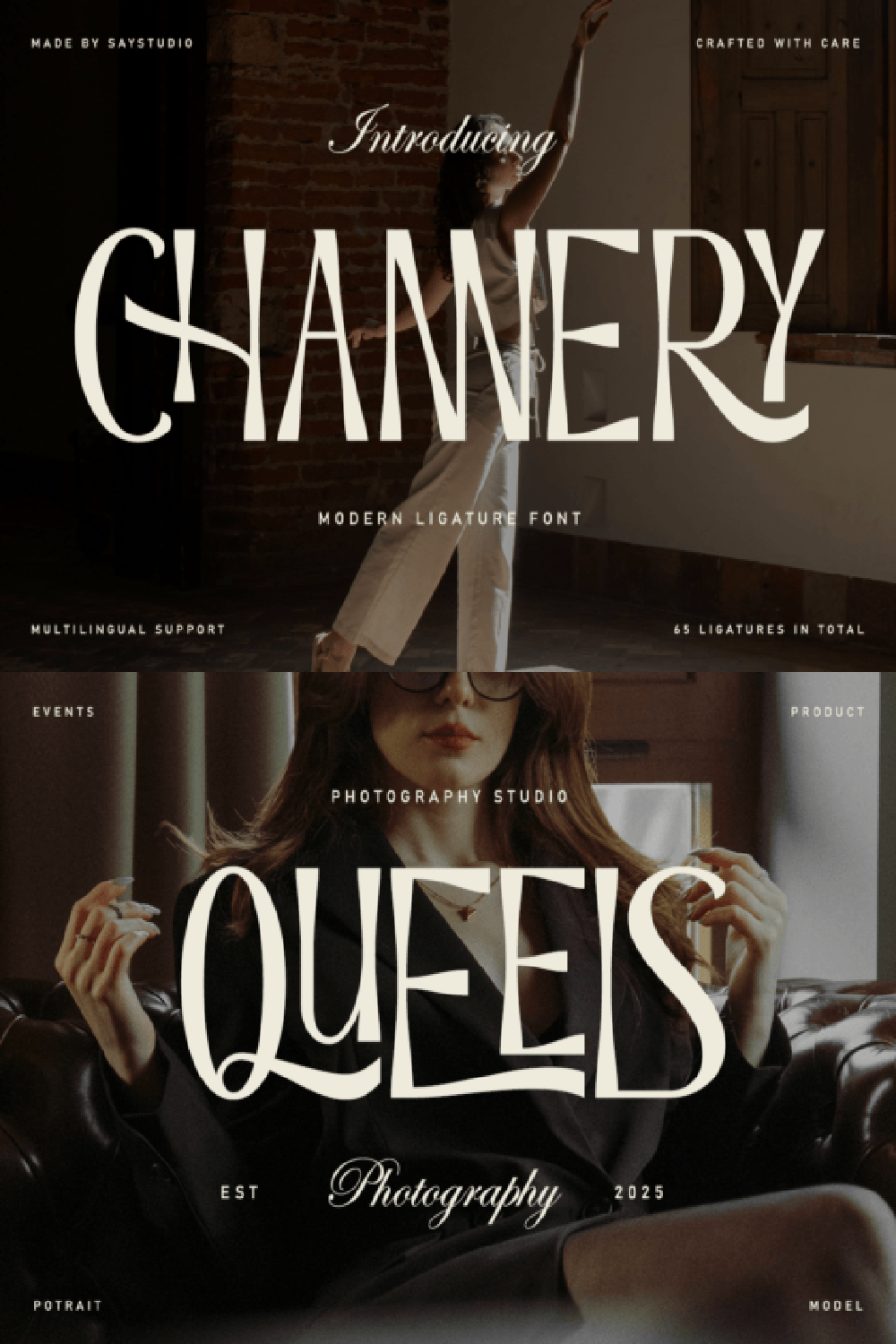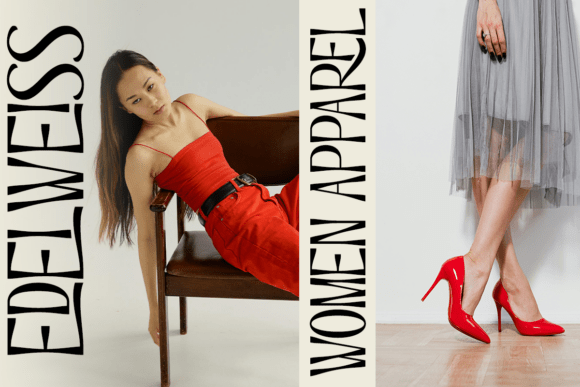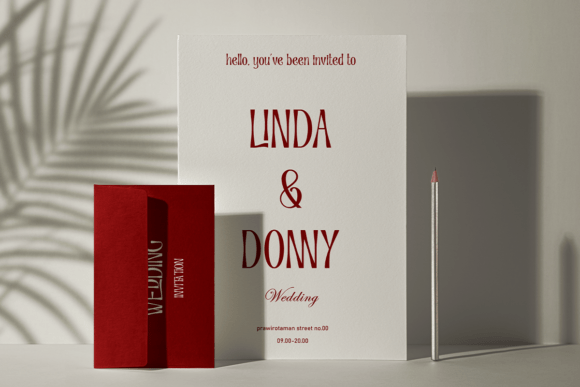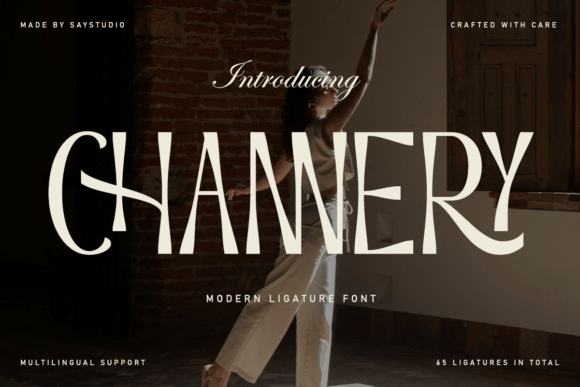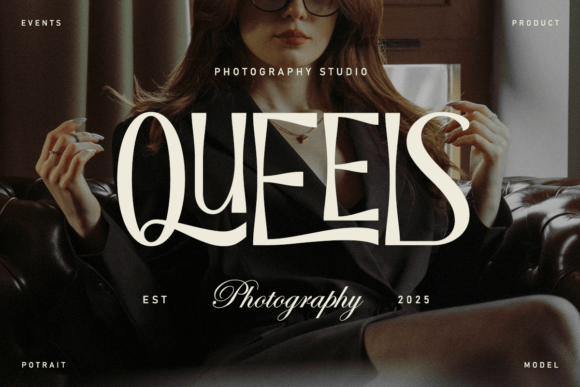
Channery Font: Elegant Ligature Serif for Modern Logo Design
About the Channery Font
Crafted with precision, the Channery Font is ready to bring your ideas to life. Channery is a modern ligatures fonts crafted with meticulous attention to detail, Channery over 65 ligatures that effortlessly blend characters, lending your text a fluidity reminiscent of the tower’s iron lattice. Its serifs are reminiscent of the Tower’s stately columns, offering a harmonious balance between classic and contemporary design. This font is not only a homage to the iconic landmark but also an embodiment of its enduring charm, perfect for bringing a touch of refined grandeur to a wide range of creative projects.